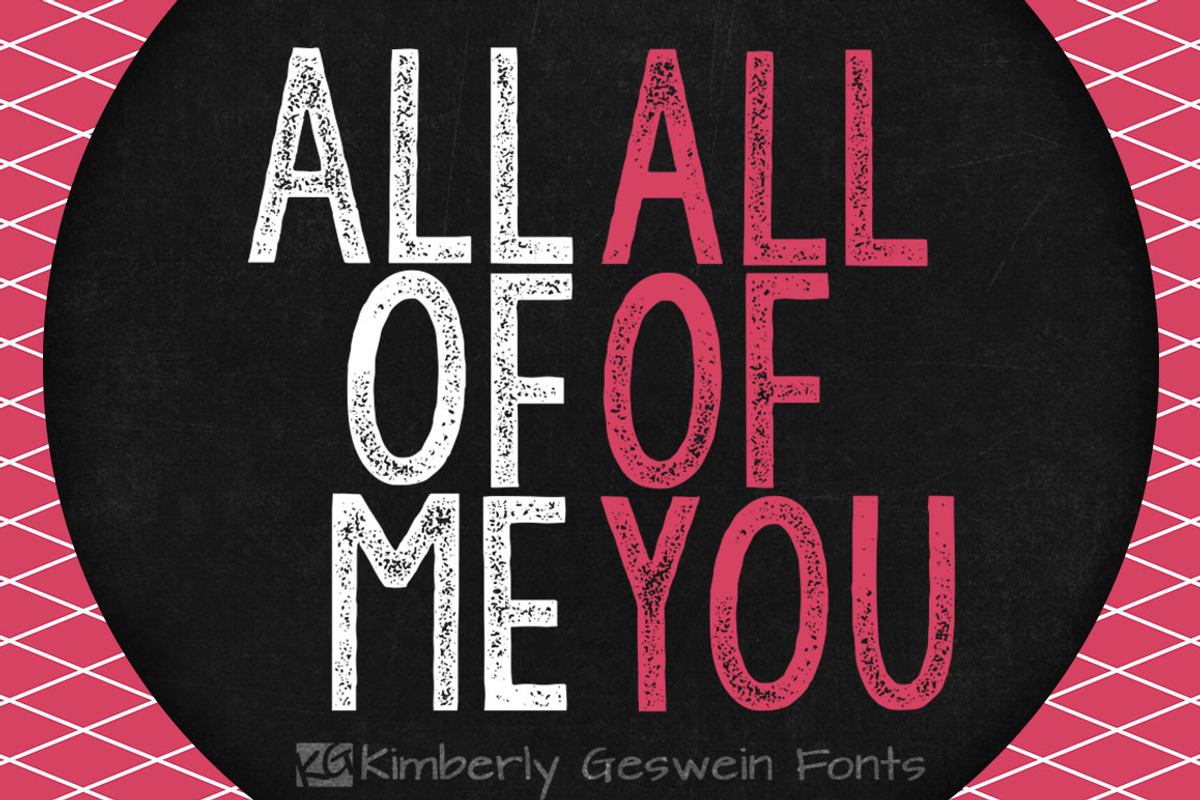
KG All of Me Font Free Download is a heartfelt, handwritten typeface designed to bring warmth, emotion, and personality to your designs. With its casual flow and soft curves, this font is perfect for love notes, wedding stationery, inspirational quotes, classroom materials, and heartfelt social media posts. It captures the feeling of a sincere, hand-penned message—genuine, friendly, and full of charm.
This font stands out with its readability and sweet, approachable style, making it a favorite among teachers, creatives, and lifestyle designers. Whether you're crafting a meaningful quote or a cheerful blog header, KG All of Me delivers a personal and uplifting vibe.